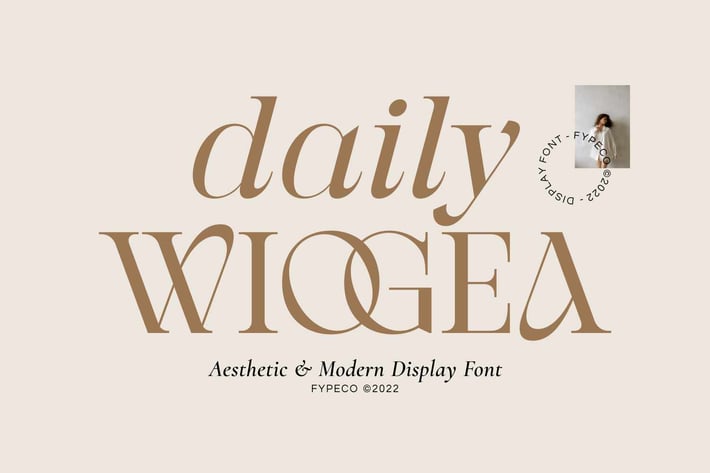
Daily Wiogea - Modern Display Font
Daily Wiogea is aesthetic and modern display font with loads of style. Daily Wiogea caps case if full of memorable glyphs that will make your work stand out. Daily Wiogea works great in layout design for quotes or body copy, posts, blog posts. branding projects, magazine imagery, typography and much more. Analogue comes with multilingual support also.
Font Features
-Uppercase
-Lowercase
-Alternatives
-Ligatures
-Numerals & Punctuation
-Multilingual Support